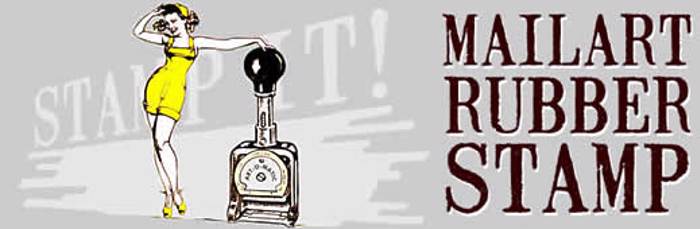
Mailart Rubberstamp Font
The Mailart Rubberstamp font was inspired by rubberstamped envelopes and artworks by Mailartists Jonathan Stangroom, H. R. Fricker and Flea Art, and the typeface Clarendon Condensed.